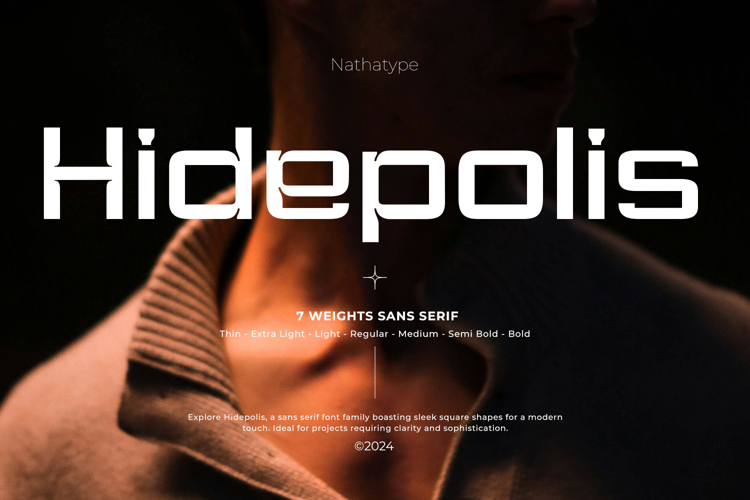
Hidepolis Font
Product Description:
Introducing Hidepolis, a sleek and versatile sans-serif font family. With seven different font weights to choose from, Hidepolis offers a wide range of options to suit your design needs. Each font weight in the Hidepolis family is made in box-shaped design that exudes a sense of strength and stability.
Features:
• Ligatures
• Multilingual Supports
• Numerals and Punctuations =======================================================